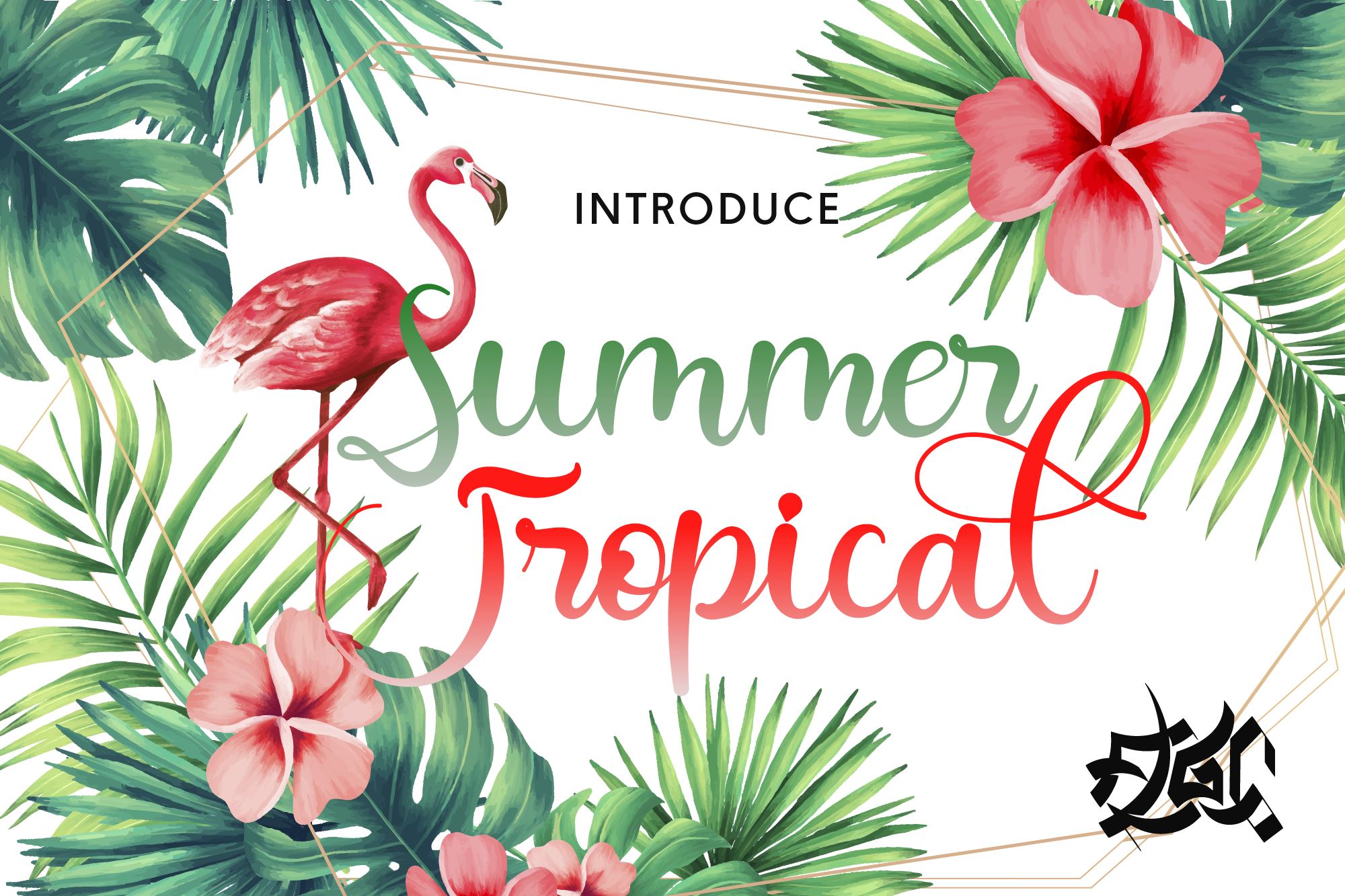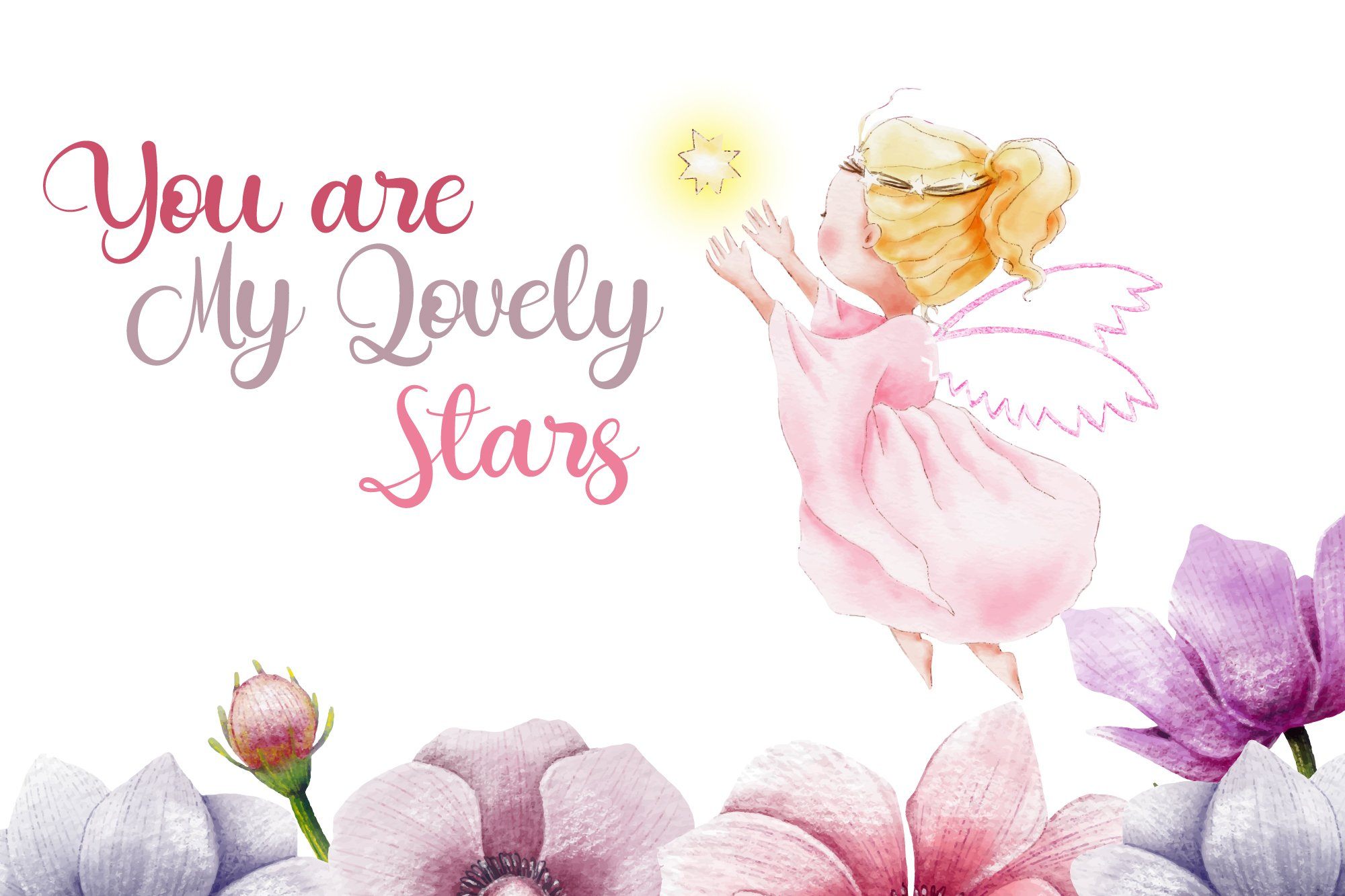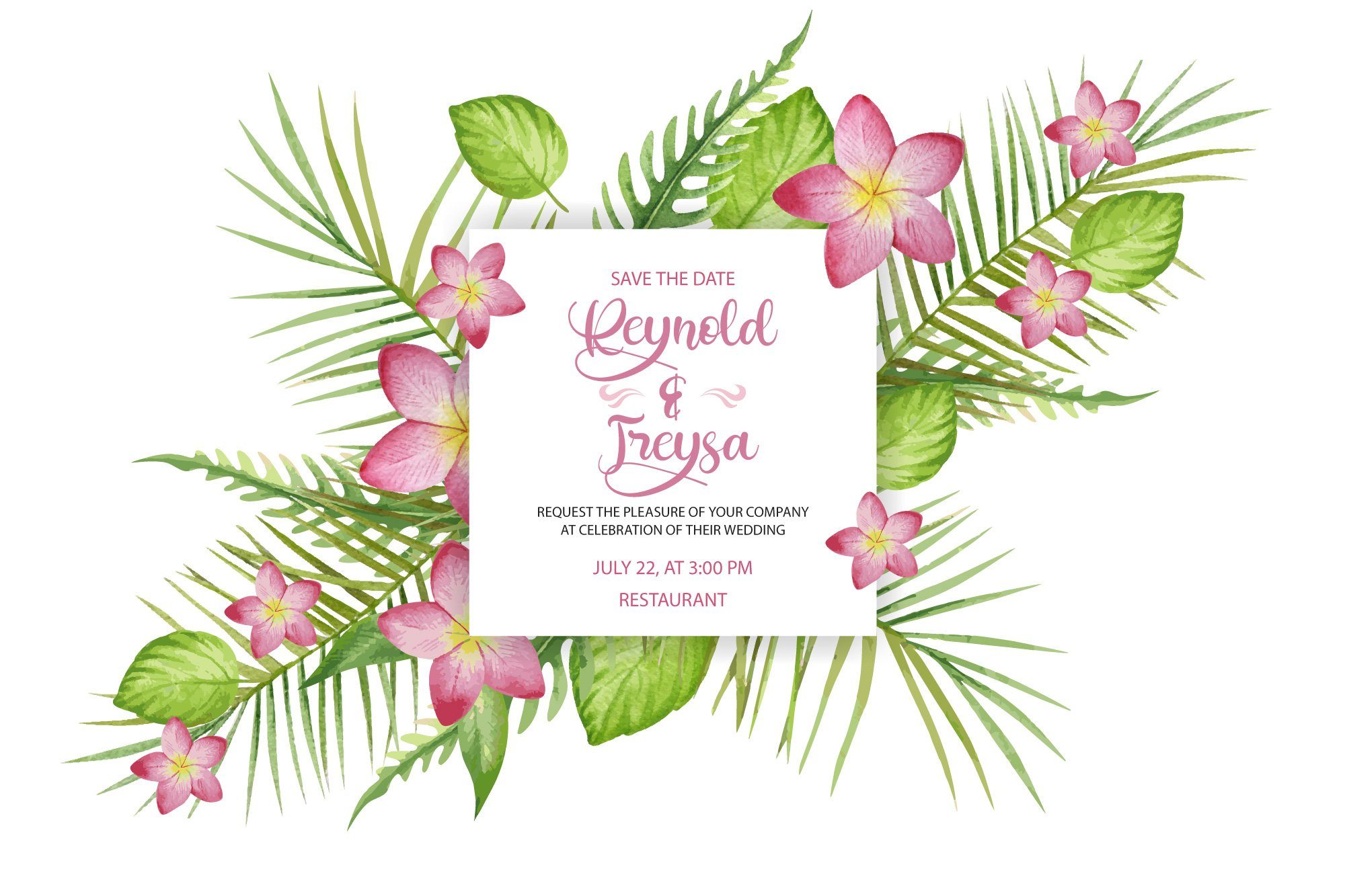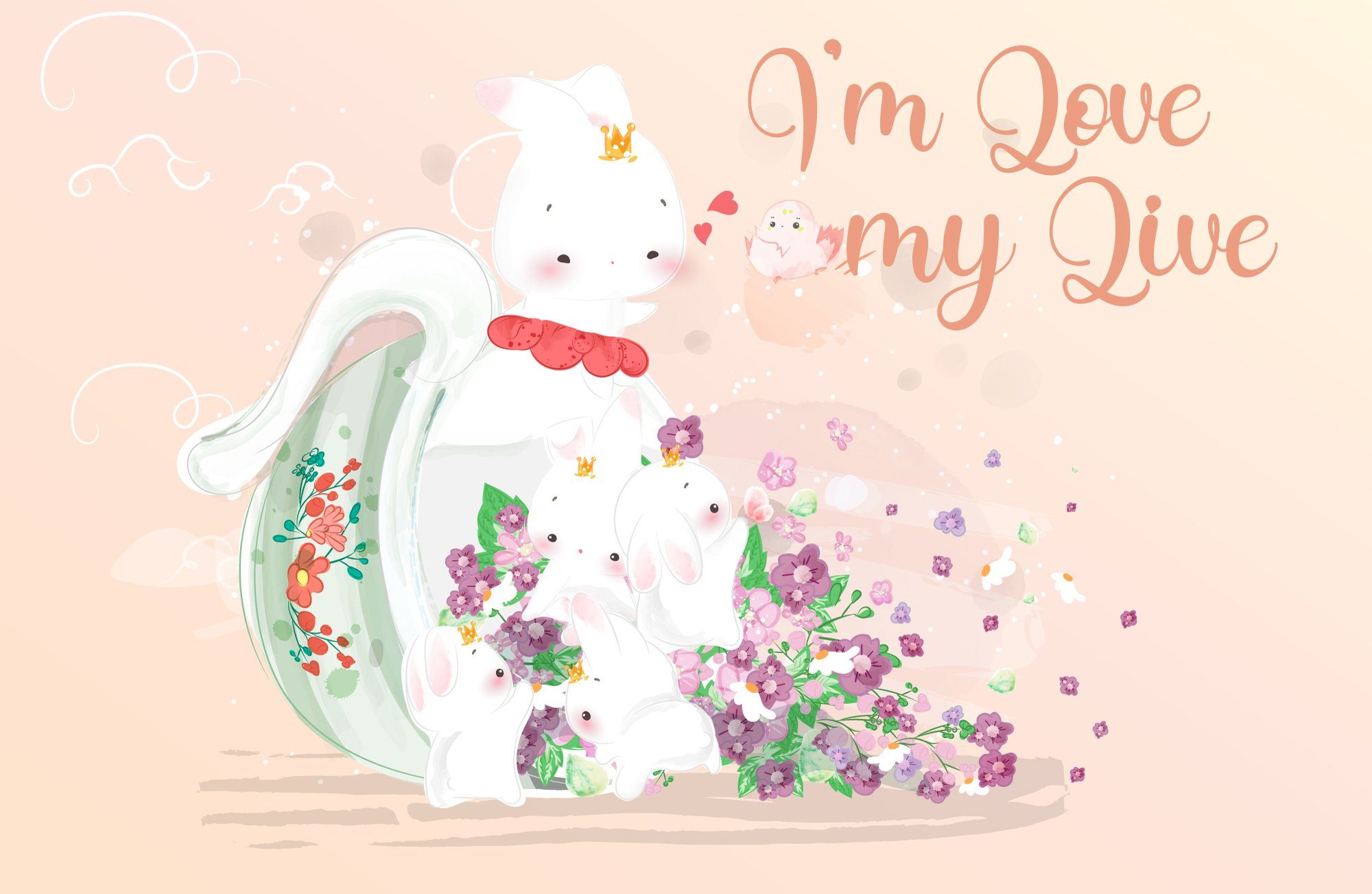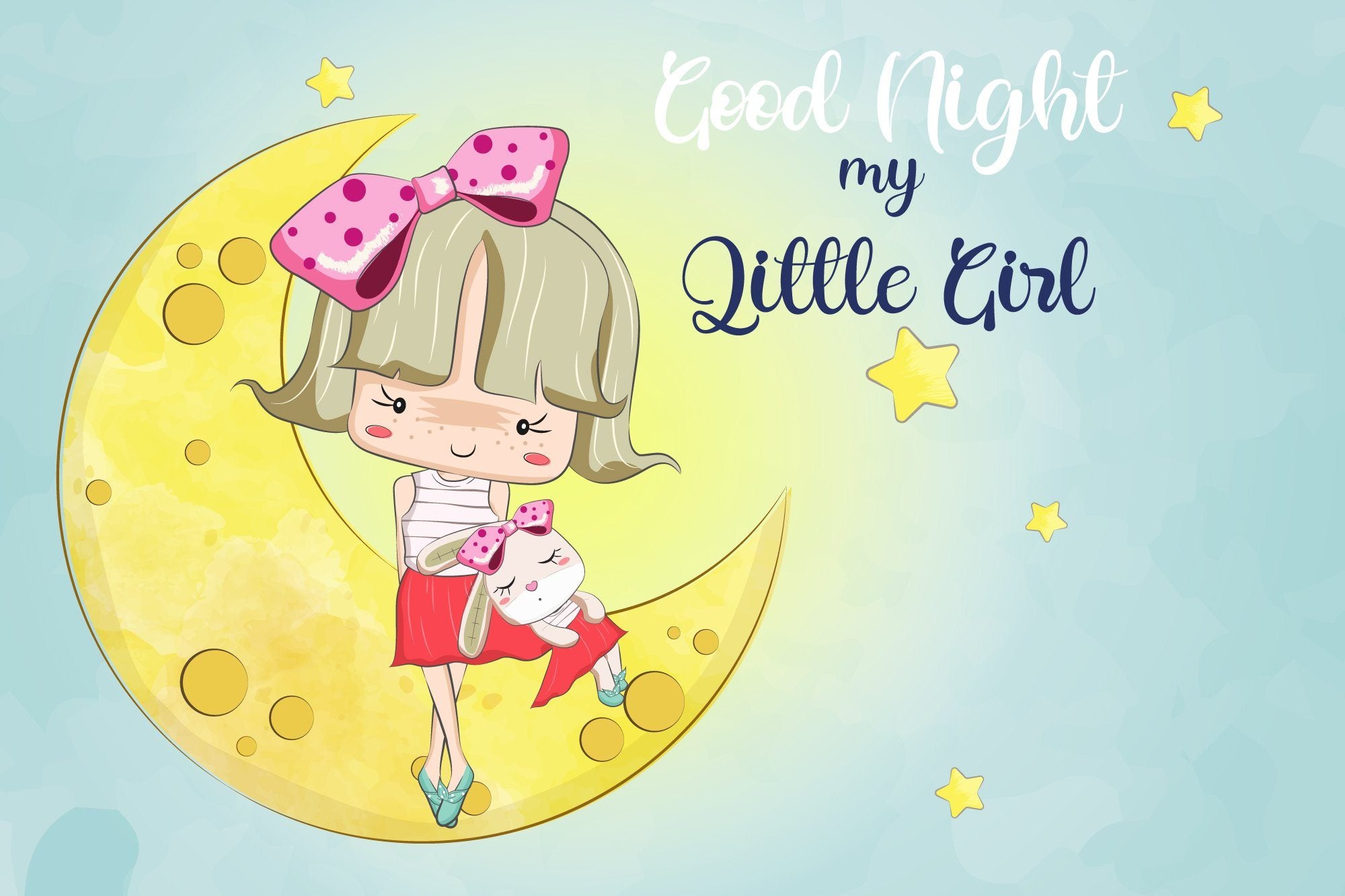
Summer Tropical
About Summer Tropical
Feeling tropical? Summer Tropical is a striking and vibrant handwritten font with a lovely twist. Get inspired by its bold swashes. So beautiful on invitation like greeting cards, branding materials, business cards, quotes, posters,wedding invitations and more!! Thank you!